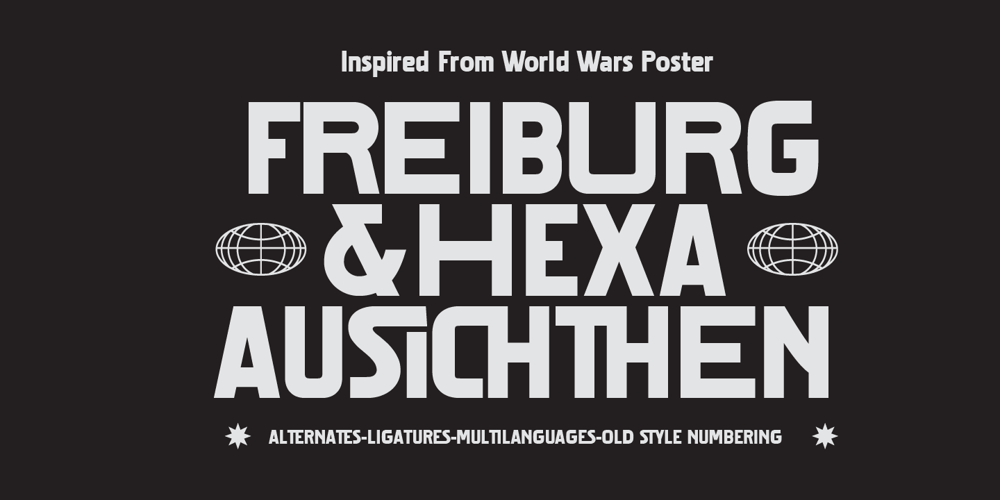
Fd Freiburg
Fd Freiburg font
Fd Freiburg Font Family was designed by Ramandhani Nugraha and published by Fortunes Co. Fd Freiburg contains 1 styles and family package options. A retro vintage typographic world of wars portrays each letter as a soldier fighting for attention and impact. The fonts are reminiscent of propaganda posters and wartime advertisements from the era, evoking a sense of urgency and patriotism. Bold, blocky serifs combined with rugged, weathered textures capture the grit and determination of those turbulent times. Each character bears the scars of conflict, yet stands tall and defiant.